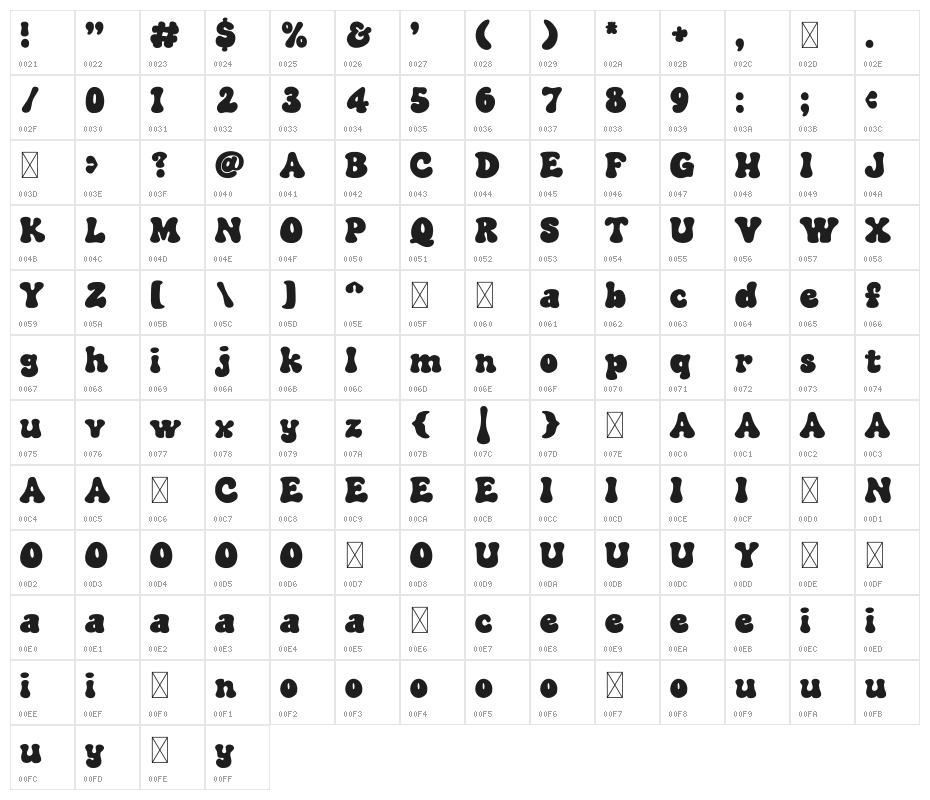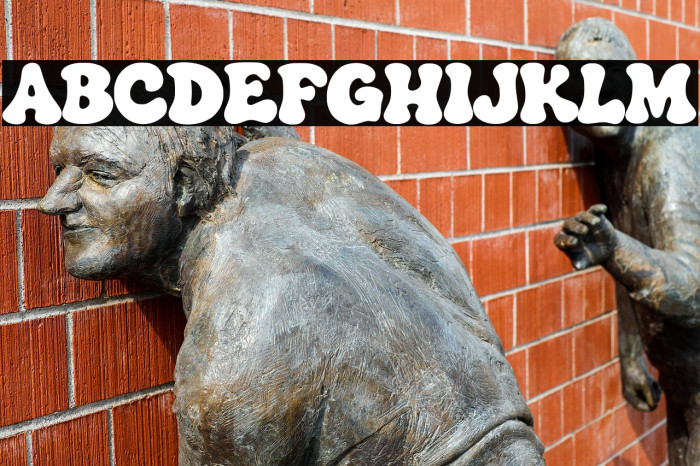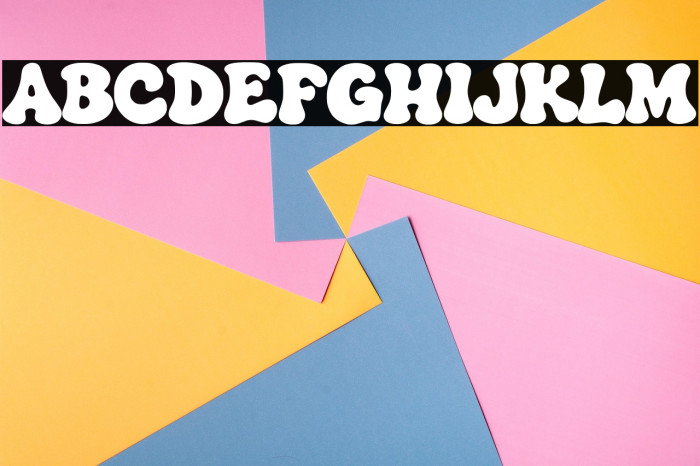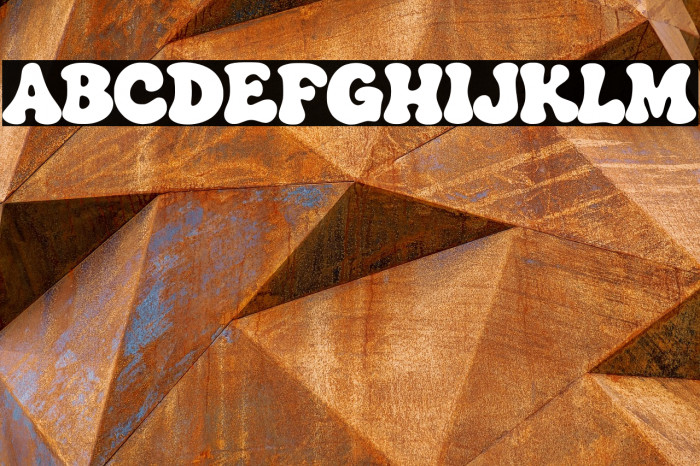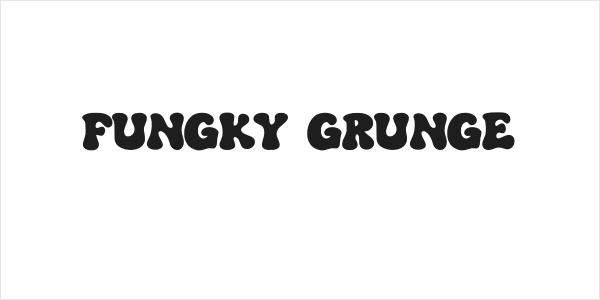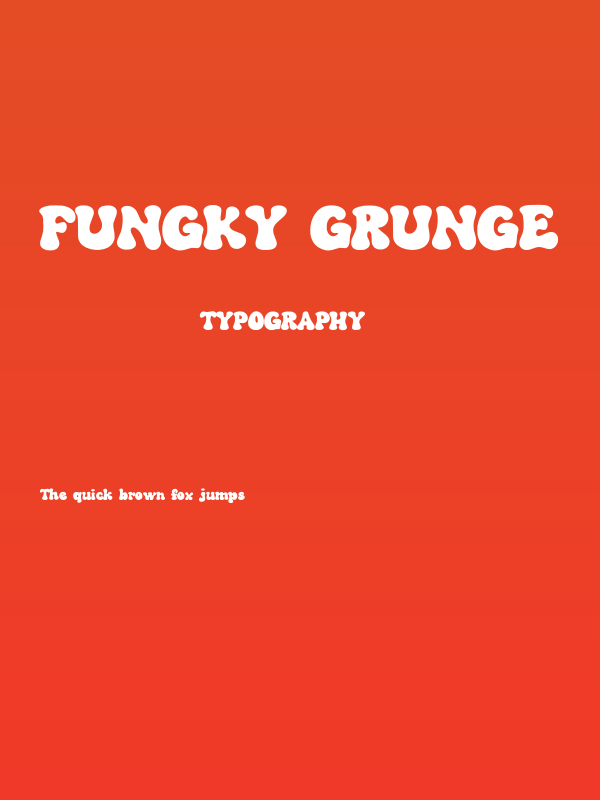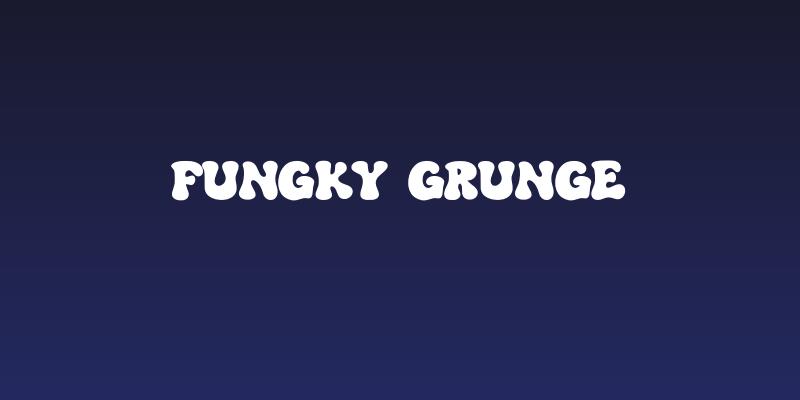
FUNGKY GRUNGE Font
FUNGKY GRUNGE Description
This font features a bold and playful design with a distinctly grunge aesthetic. The characters are rounded and thick, giving them a bubbly appearance. The style is reminiscent of retro or psychedelic themes, with a touch of modern flair. The letters are closely spaced, enhancing the boldness and making the font stand out. Its unique style makes it suitable for creative and artistic projects, where a strong visual impact is desired. The font includes a full set of uppercase and lowercase letters, numbers, and a variety of special characters, ensuring versatility in design applications.
| Proposed Projects | Ideal for posters, album covers, branding for creative industries, and any project requiring a bold, artistic touch. |